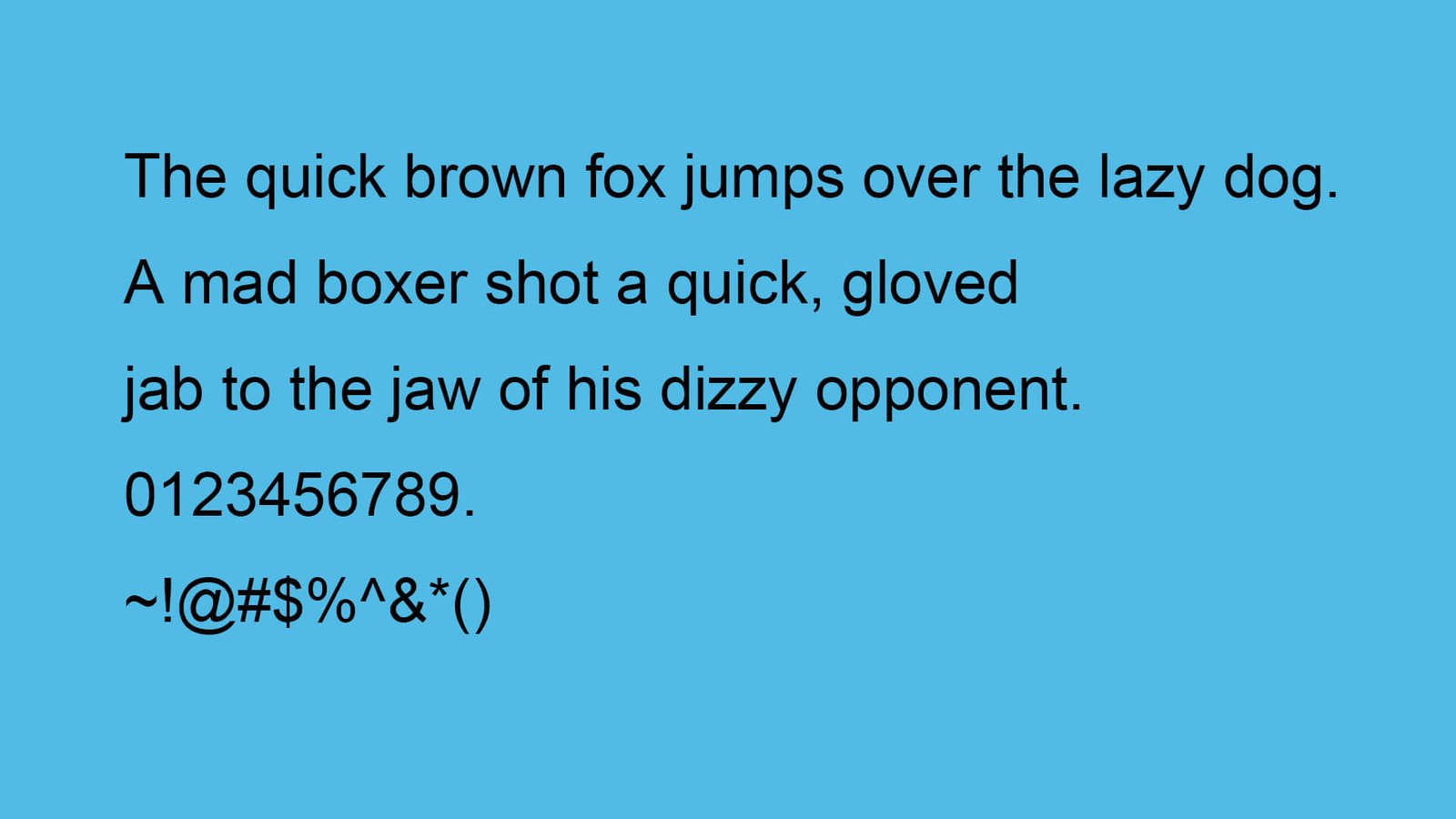
Arial Font belongs to the Sans-serif Typeface Family, which was created in 1982 by designers Robin Nicholas and Patricia Saunders. They are highly skilled in the design industry. This Font was established by the American company Monotype Corporation.
This font was initially designed and used as a similar typeface Helvetica which is another prominent Sans-serif typeface. Arial font has 38 different and unique styles, including Bold Italic, Narrow Bold Italic, Extra Bold, Medium, Condensed, Regular, and some other styles.
Arial Font Family
| Name | Arial Font |
| Designers | Robin Nicholas, Patricia Saunders |
| Style | Sans-serif |